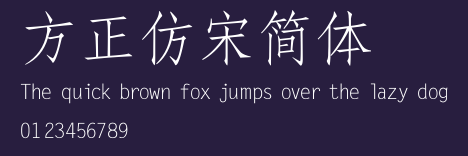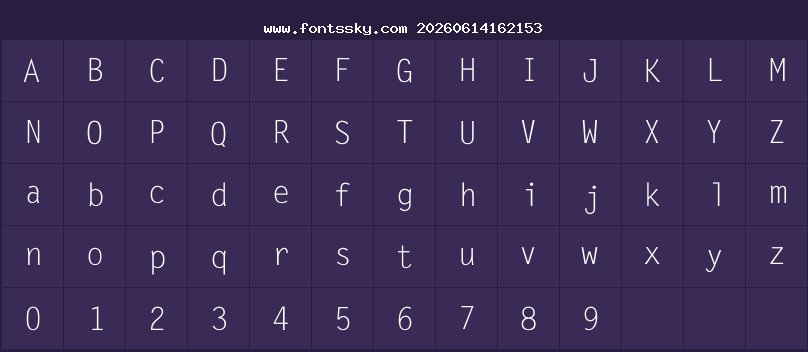
方正仿宋简体 Preview
• Font Name: 方正仿宋简体
• Font ID: Founder:方正仿宋简体 Regular
• Full Font Name: 方正仿宋简体
• Version: 4.00
• PostScript Name: FZFSJW--GB1-0
• Character Count: 8097
• Copyright: Copyright(c) Founder Corporation.2000
About 方正仿宋简体.ttf
方正仿宋简体.ttf is a modern, elegant sans-serif font designed for ultimate readability and visual harmony. Perfect for branding, headlines, web design, and print materials.